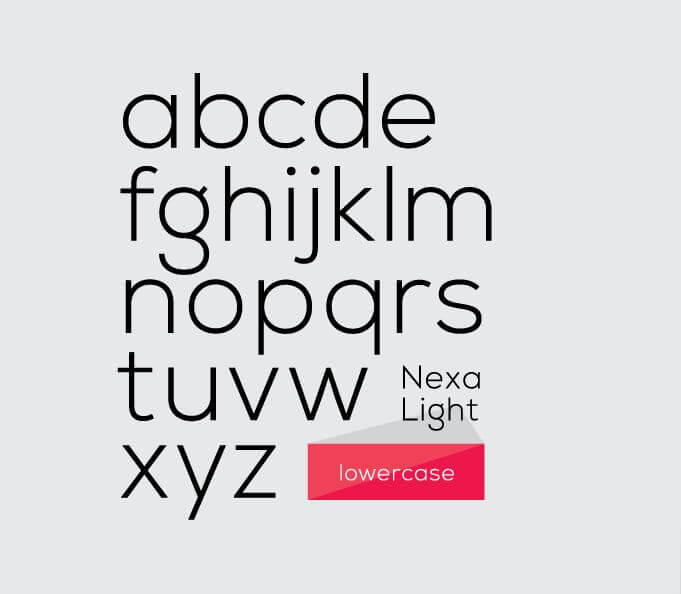
Nexa Bold Font
Nexa Bold Font features unique dots that provide a distinct style to both uppercase and lowercase letters. It is reminiscent of the Helvetica font, known for its distinctive qualities.
It suggests its enough facet in finely crafted ebook versions and distinctive printing occasions. It has a giant persona set that covers many of the languages that use the Latin script.